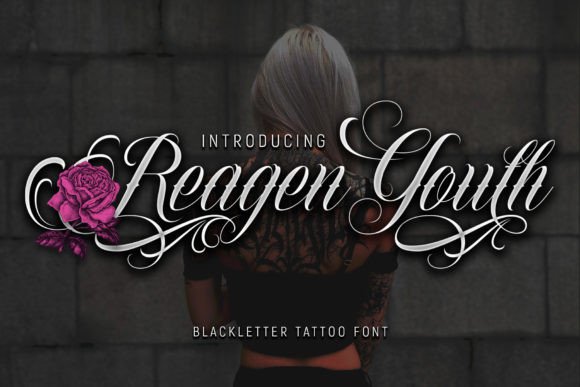
Step into the realm of visual allure with Reagen Youth, a font that's not just a design choice but a statement of individuality. Its blackletter aesthetics, inspired by the art of tattoo lettering, will leave an indelible mark on your designs. Imagine your brand, your creations, adorned with this enigmatic script that whispers tales of rebellion and self-expression.
Crafted by the masters at Letter Stock, Reagen Youth is a contemporary take on a classic genre, bringing a fresh perspective to the art of typography. Whether you're a graphic designer seeking inspiration, a brand owner yearning for a unique identity, or simply an enthusiast of the written word, Reagen Youth is your gateway to visual liberation.
Its versatility is a testament to its adaptability, allowing it to seamlessly blend with logos, t-shirt designs, posters, flyers, and a myriad of other media. Let Reagen Youth be your muse, your guiding light, as you craft designs that resonate with your audience, leaving them captivated and craving more.